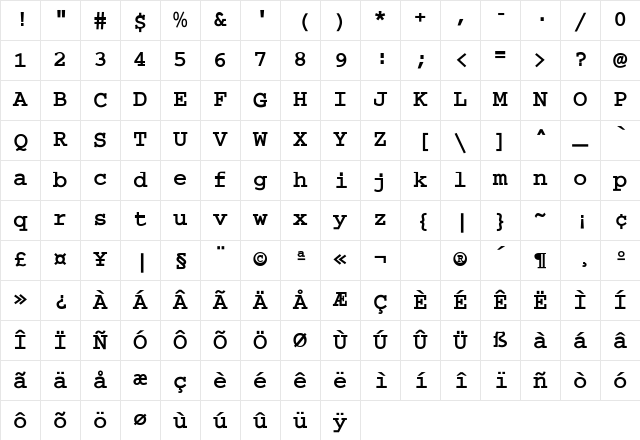
Mono-Bold-Bold Regular Free Font
Mono-Bold-Bold Regular
Complete Mono-Bold-Bold Regular glyph index. Displaying only characters natively supported by Mono-Bold-Bold Regular font.
Design Context for Mono-Bold-Bold
Mono-Bold-Bold uses fixed-width spacing throughout, giving it the structured, systematic character associated with coding environments and technical documentation. Its bold stroke weight gives it real presence on the page.